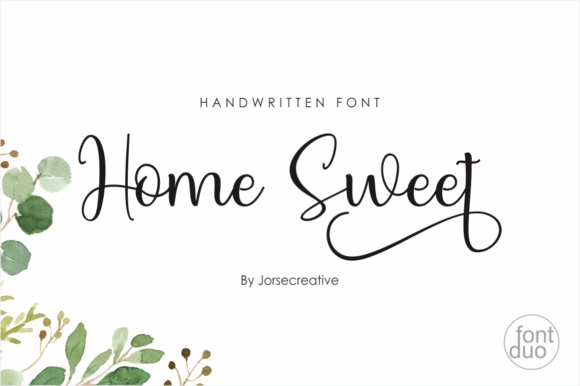
Home Sweet Font
About Home Sweet Font
The Home Sweet is a handwritten font with beautiful flowing characters. It was designed to look like it’s been written with your own hands. It can be used for various purposes such as: greeting cards, branding, brochures, t-shirts, and much more!